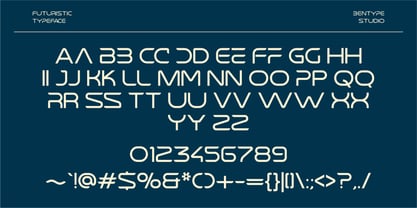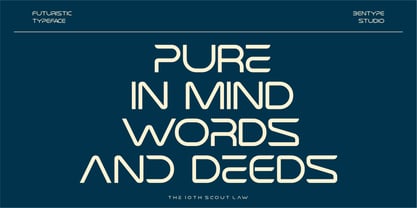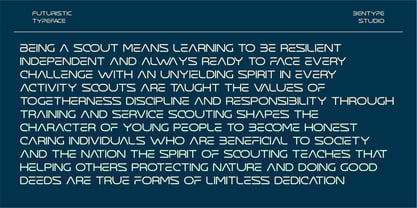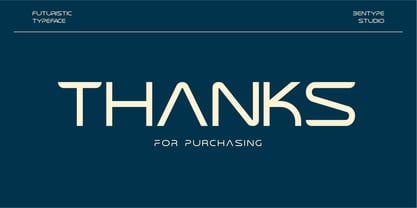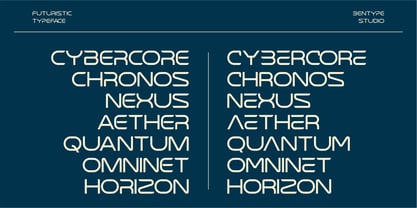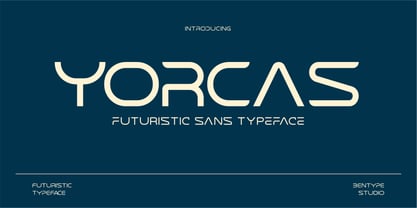
Yorcas
by Bentype
The Yorcas Font Family was designed by Muhammad Farkhan and published by Bentype. Yorcas contains 1 styles.
Yorcas is a font that is designed for the modern and futuristic era. The font has an all cap style, coming with a high tech theme. This font can be used in technology fields, like robot & android, hi-tech, future, virtual reality, outer space, and many others. Use this font for your futuristic modern looking designs as well as your own unique designs! Font Includes: All caps, character, Numbers, Punctuation. Contact us if you need help. I hope you enjoy and thank you.
Designers: Muhammad Farkhan